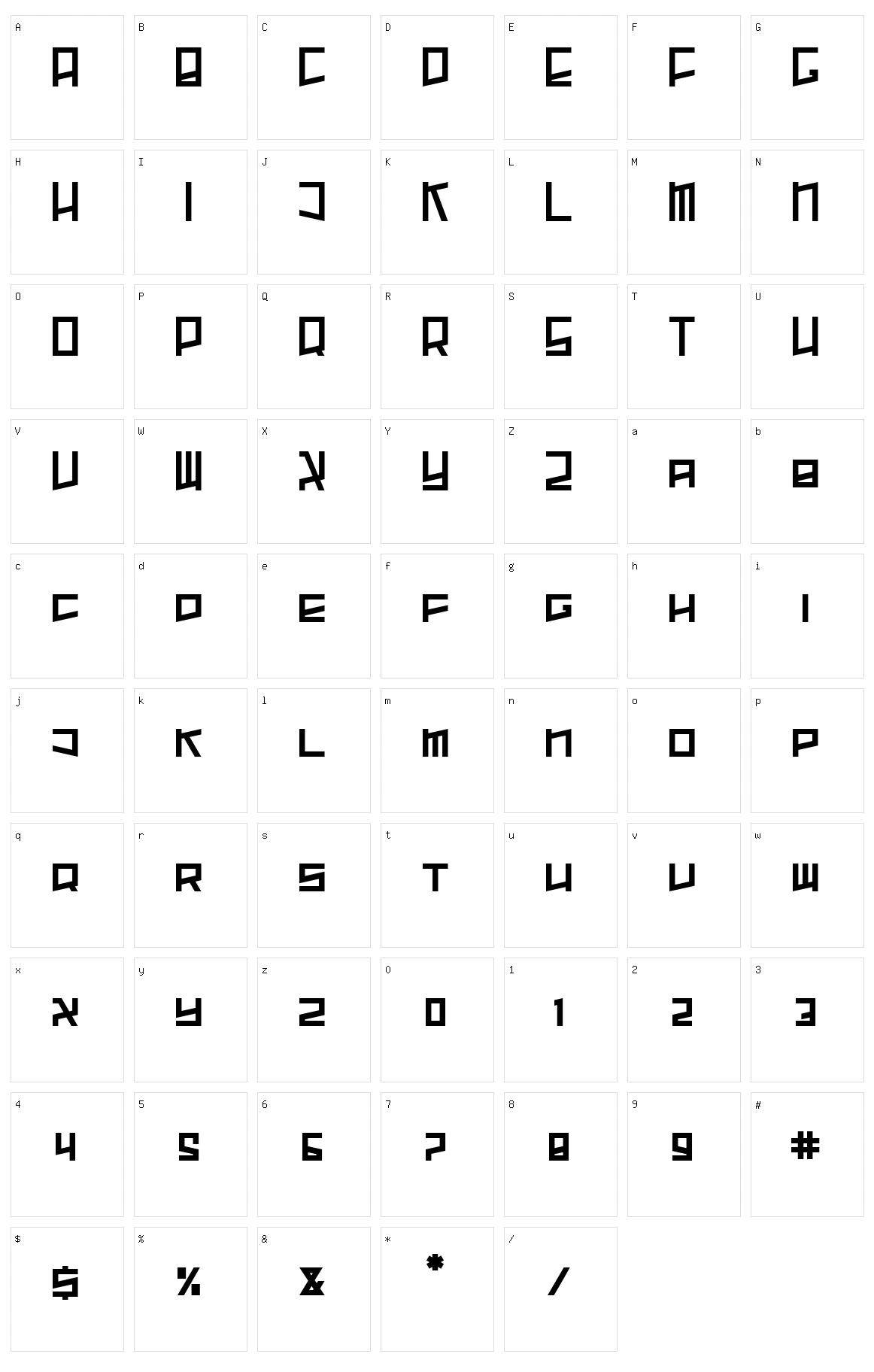
The free font Xander is carefully designed by Sahirul Iman, showcasing a thoughtful balance of creativity and usability and falls under the Square font style. When you download the ZIP file, it contains only 6.57 KB of font files, making it lightweight and quick to download. Please review the license details below to understand permitted usage and distribution rights. If license information is not available, we recommend using this font for personal projects only or contacting the author directly for commercial usage permissions.